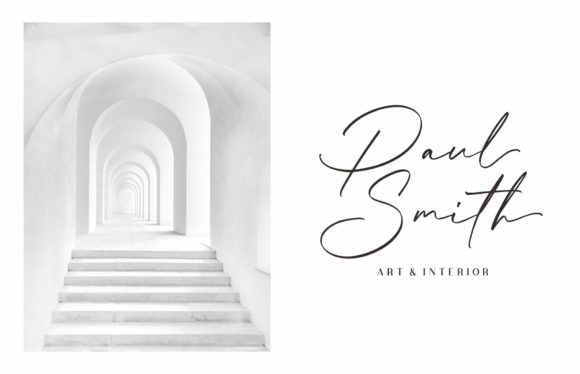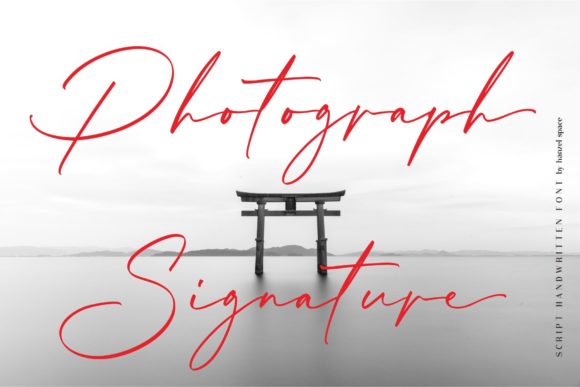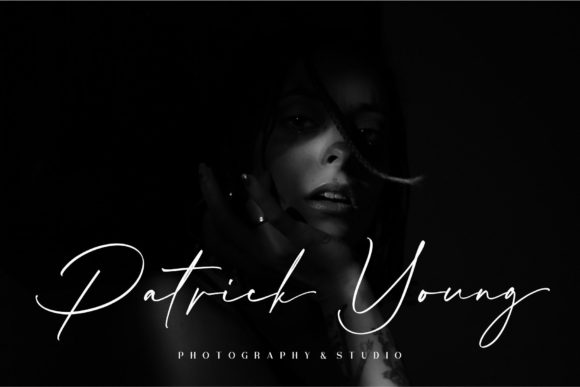
Collin Weather Font
About Collin Weather Font
Introducing “Collin Weather,” a lovely and delicate script font that radiates elegance and class. This font has been carefully crafted to bring a beautiful and refreshing look to your designs, making it a perfect choice for a variety of creative projects.
One of the standout features of “Collin Weather” is its graceful and flowing script style. The letters dance along the baseline with a gentle and effortless touch, creating an air of sophistication and refinement. Each character is meticulously designed, paying attention to every curve and stroke, resulting in a font that exudes elegance and beauty.
The versatility of “Collin Weather” allows it to shine across a wide range of design applications. Whether you’re working on wedding invitations, branding materials, packaging designs, or social media graphics, this font will add a touch of sophistication to your creations. Its delicate and refreshing look makes it particularly well-suited for projects that require a sense of beauty and refinement.
With its PUA encoding, accessing the amazing glyphs and ligatures of “Collin Weather” is a breeze. These additional design elements allow you to further customize your text, adding decorative swashes, flourishes, and alternate characters to enhance the overall aesthetic of your design. This flexibility gives you the freedom to create truly unique and personalized creations that stand out from the crowd.
When used in wedding invitations, “Collin Weather” brings a sense of romance and elegance. The delicate curves and intricate details of the font create a visually stunning invitation that sets the tone for a special day. Combined with other design elements such as floral motifs or soft pastel colors, this font adds a touch of sophistication and refinement to your wedding stationery.
Brands and businesses looking to convey a sense of elegance and class can also benefit from using “Collin Weather” in their branding materials. Whether it’s a logo, business card, or packaging design, this font adds a level of professionalism and refinement to your visual identity. Its delicate script style communicates a sense of attention to detail and a refined aesthetic, leaving a lasting impression on your audience.
Social media graphics and digital designs also come to life with “Collin Weather.” Whether you’re creating inspirational quotes, promotional graphics, or eye-catching banners, this font brings a touch of sophistication to your visual content. Its delicate and refreshing look captures attention and adds an air of elegance to your online presence.
In conclusion, “Collin Weather” is a lovely and delicate script font that exudes elegance and class. With its refreshing and refined look, this font brings a touch of beauty to a wide range of design projects. From wedding invitations to branding materials and social media graphics, “Collin Weather” is sure to enhance the overall aesthetic and leave a lasting impression on your audience.